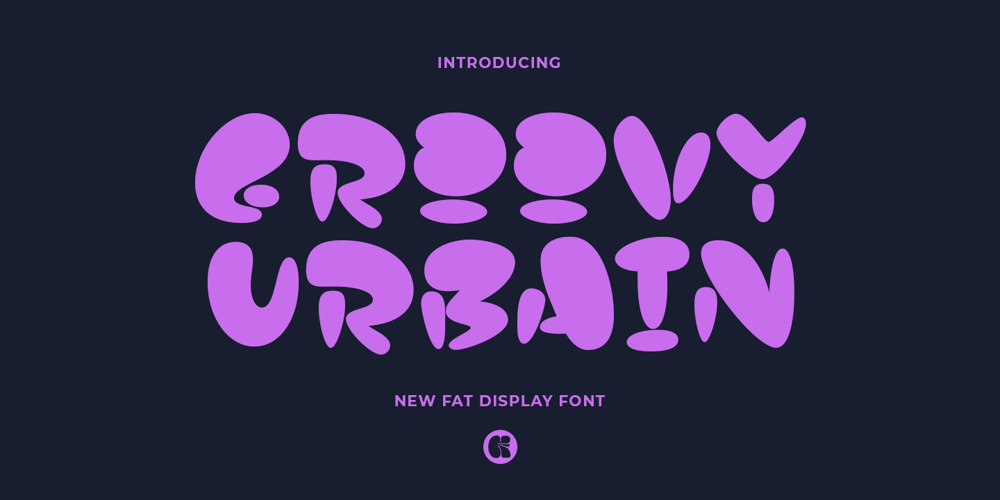
GF Urbain Font Family was designed by Ahmad Ginanjar Riyadi and published by Groovy Font. GF Urbain contains 1 styles and family package options. Groovy Urbain font is a chubby and bold display font with a delightful combination of vectors that form a cute and whimsical design. This font is characterized by its chunky appearance and playful aesthetic, making it the perfect choice for cartoon-inspired projects.The charming and friendly look of Groovy Urbain adds a touch of fun and creativity to any design, making it ideal for conveying a light-hearted and jovial tone. Whether used in branding, illustrations, or any other creative endeavor, this font is sure to bring a sense of charm and character to the layout.What’s you’ll get : – Uppercase, Lowercase, Numeral, Punctuation & Multilingual.For any questions please contact me 🙂Thank You !